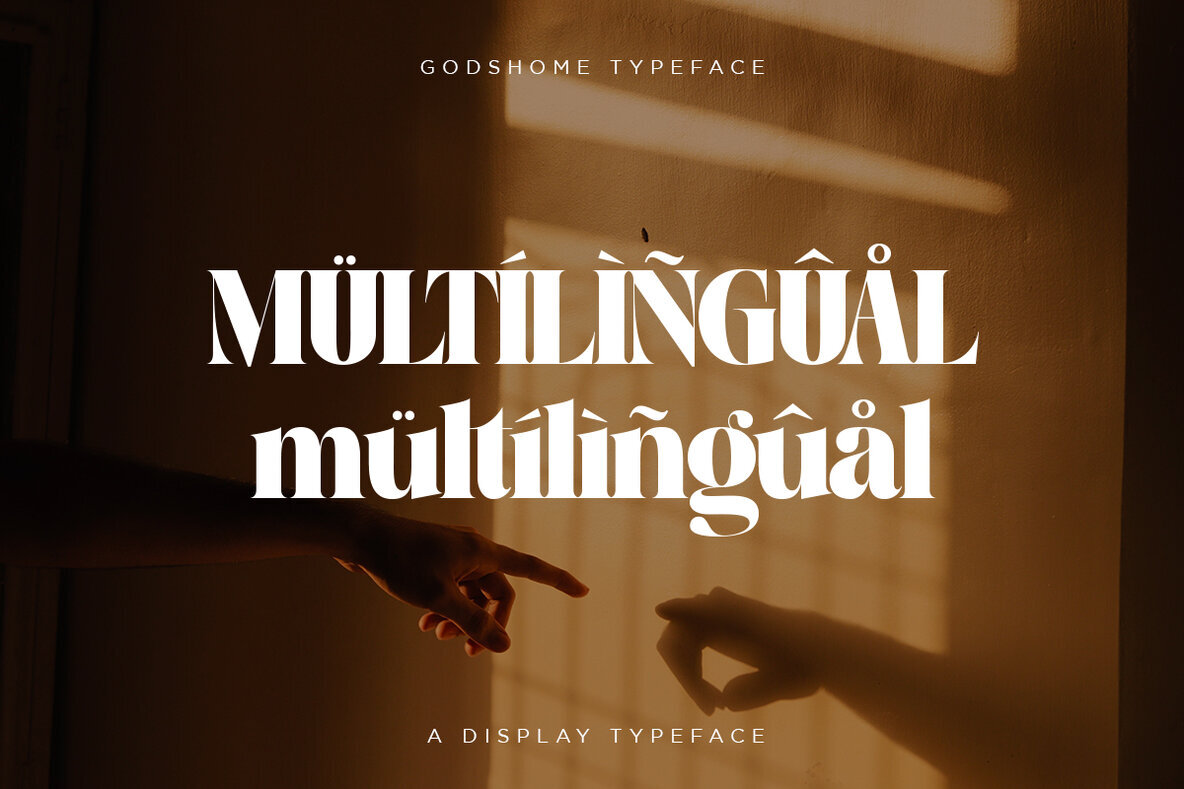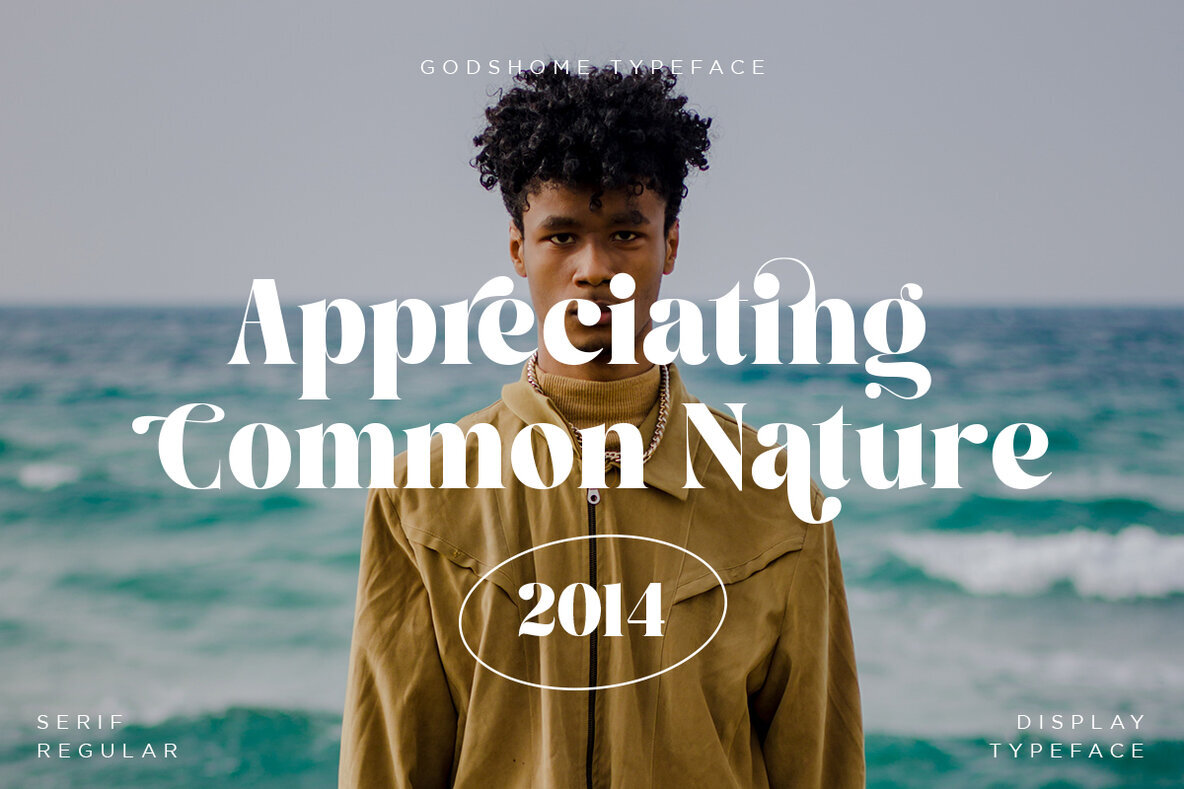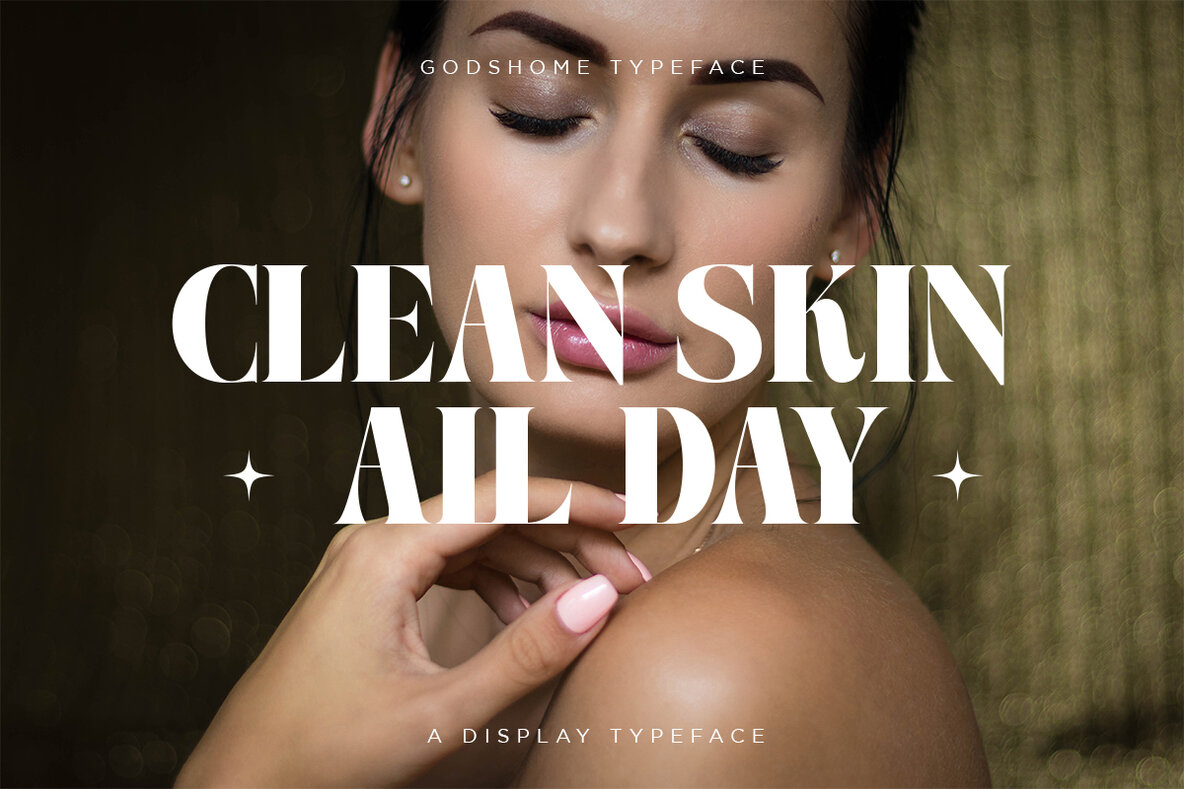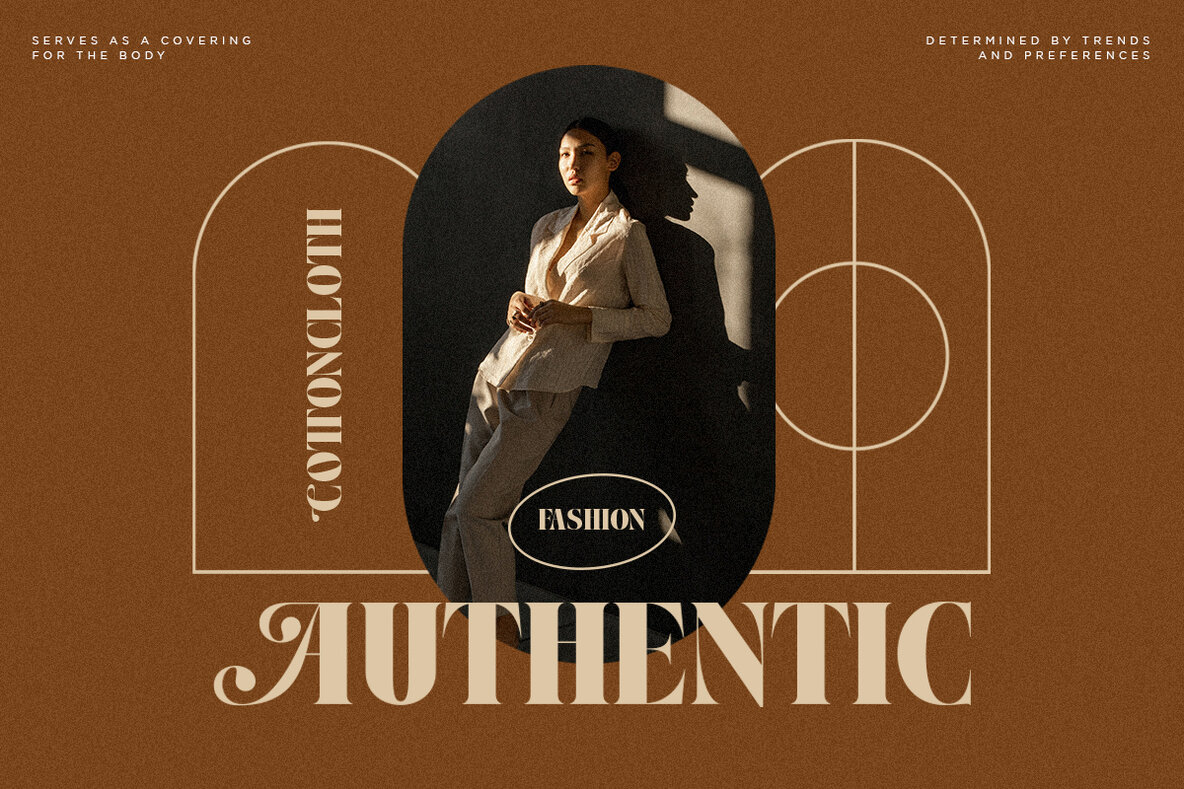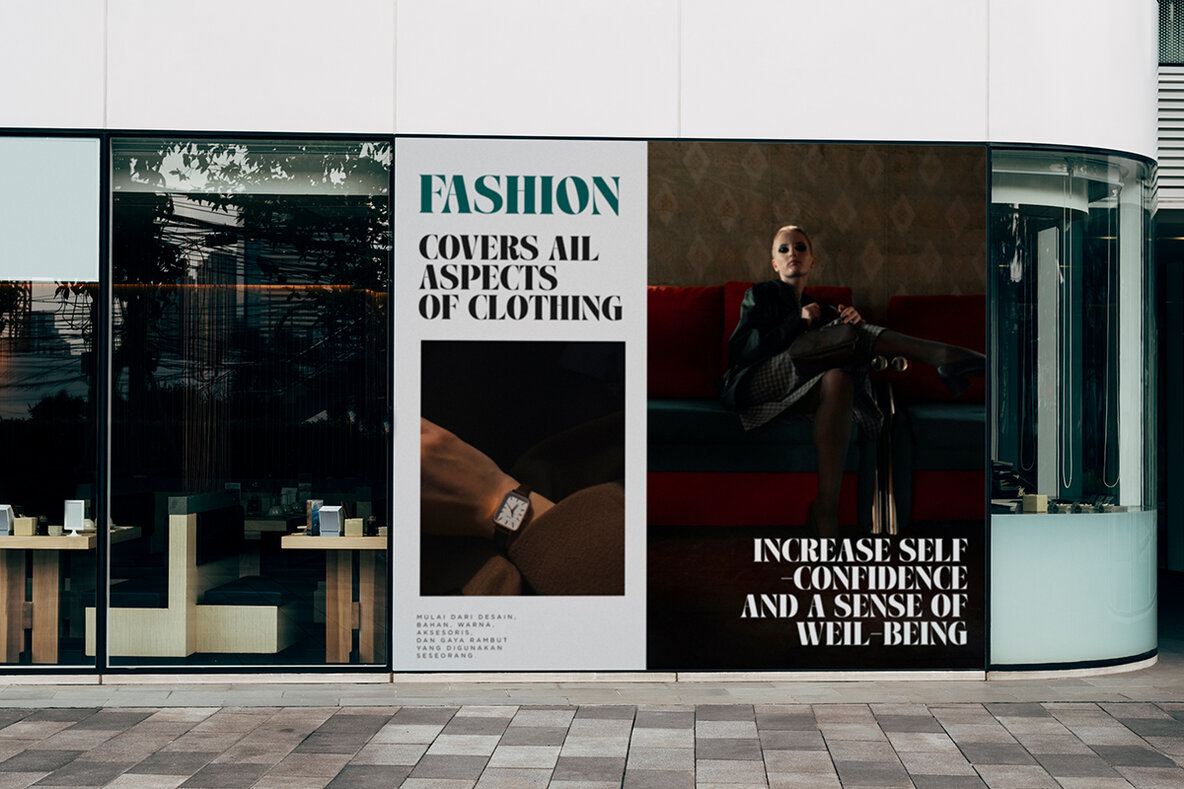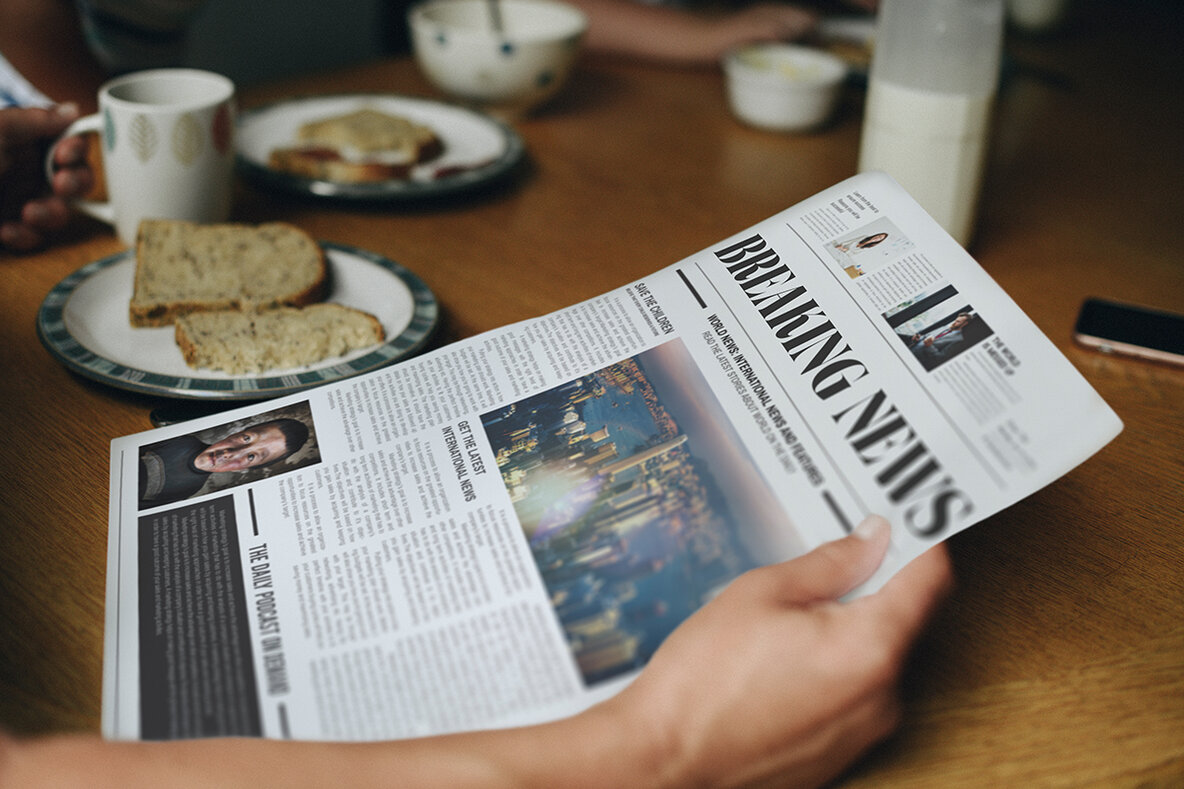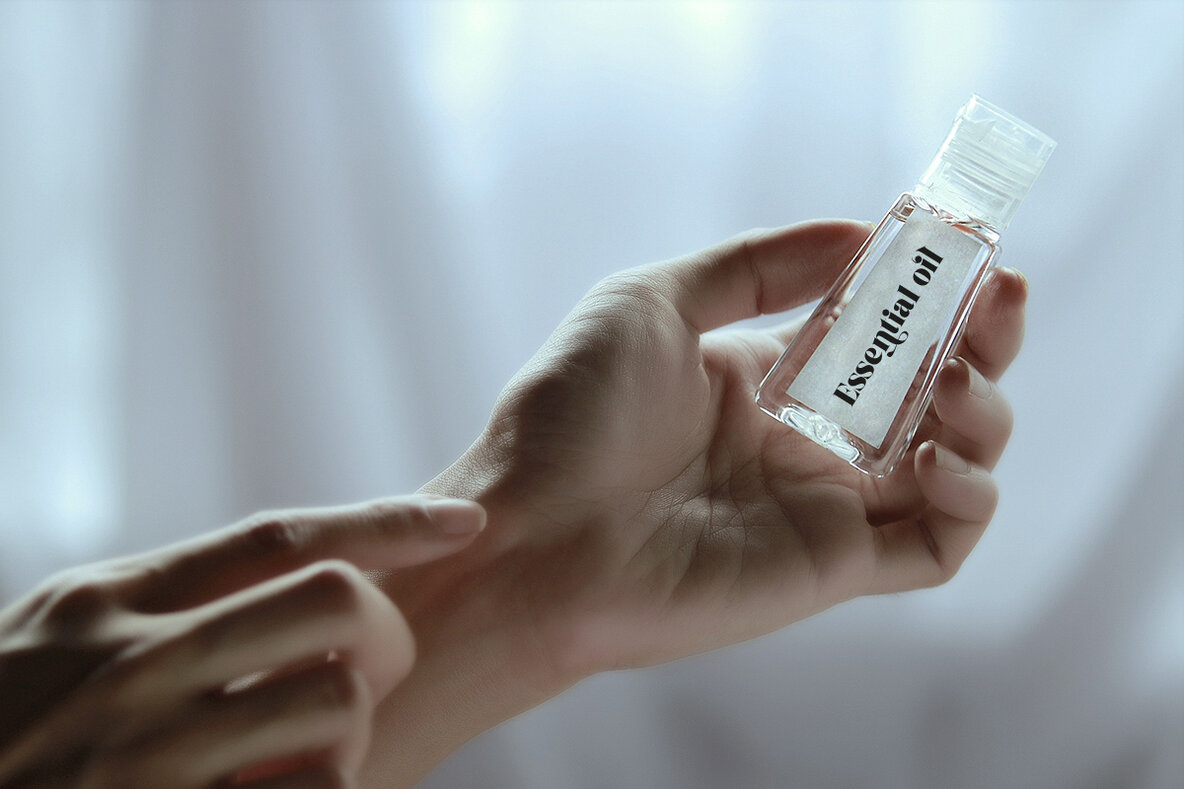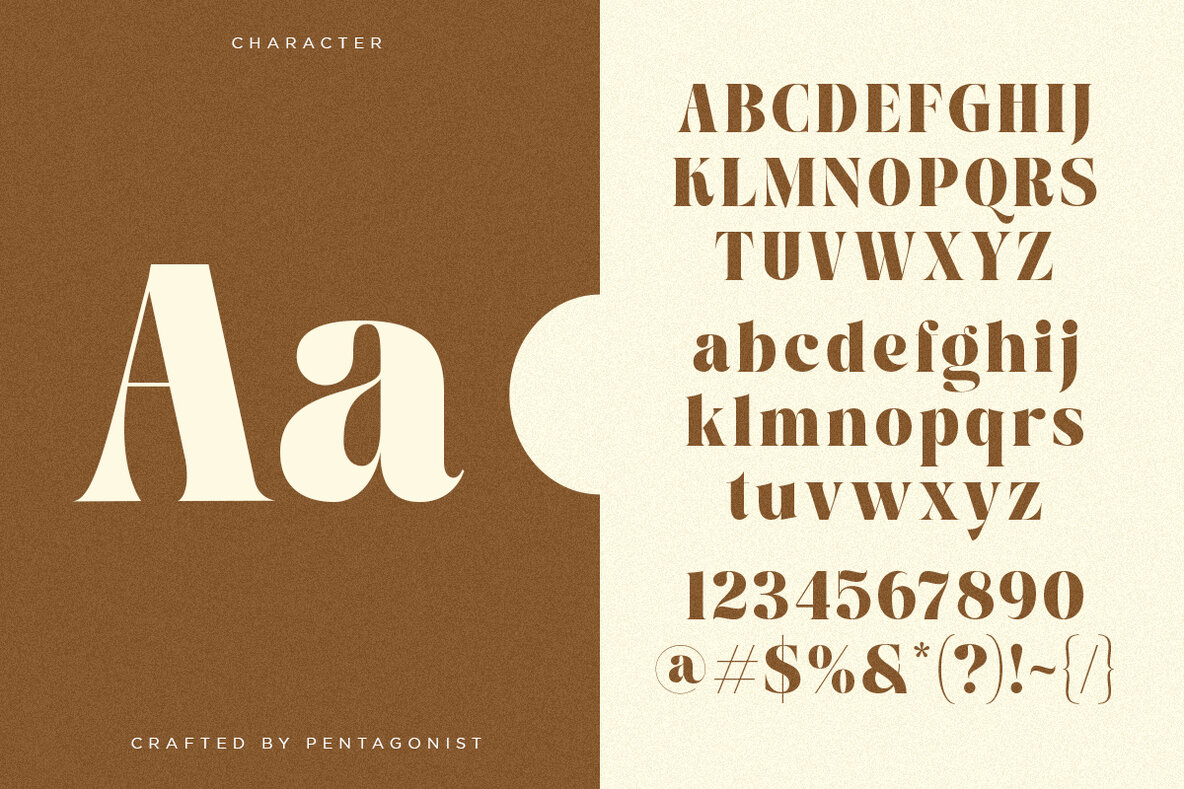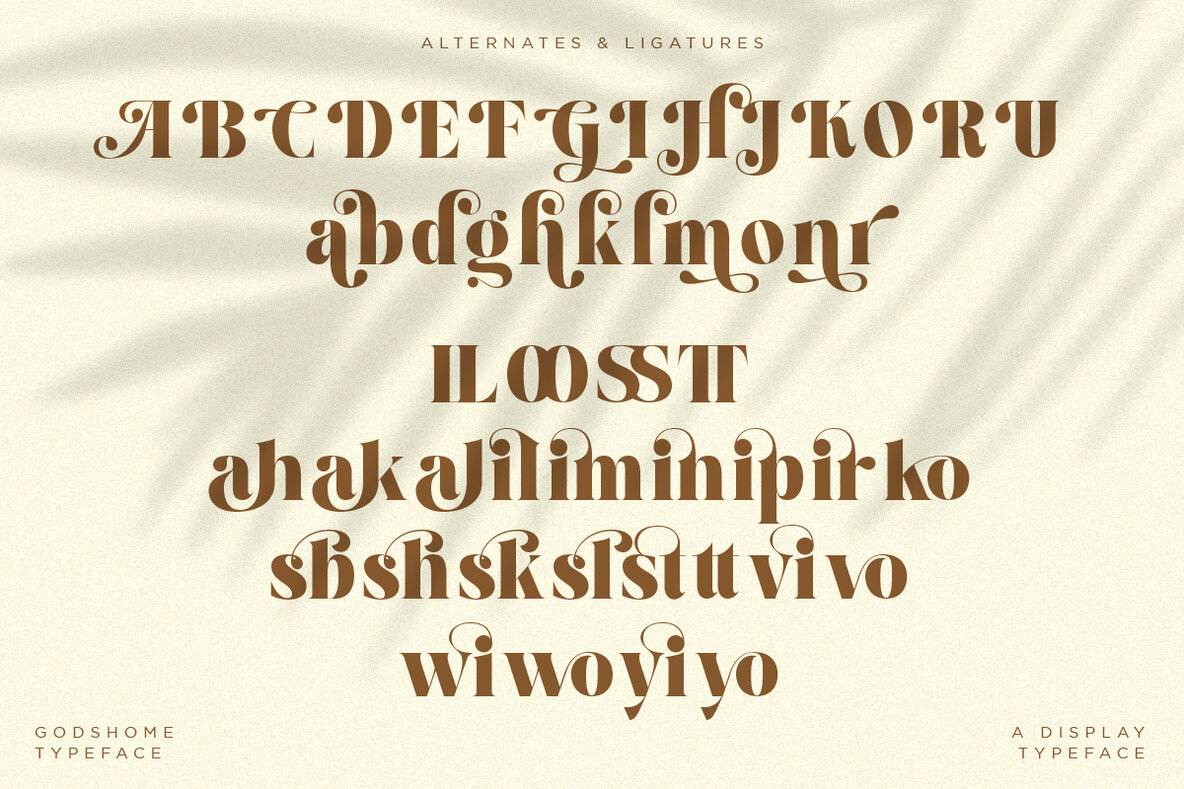
Godshome Font
Godshome Regular
Godshome is a modern serif typeface crafted with an eye for elegance and sophistication. Its design draws inspiration from timeless style, making it a versatile choice for projects requiring a touch of refinement.Godshome: An Elegant Serif Typeface